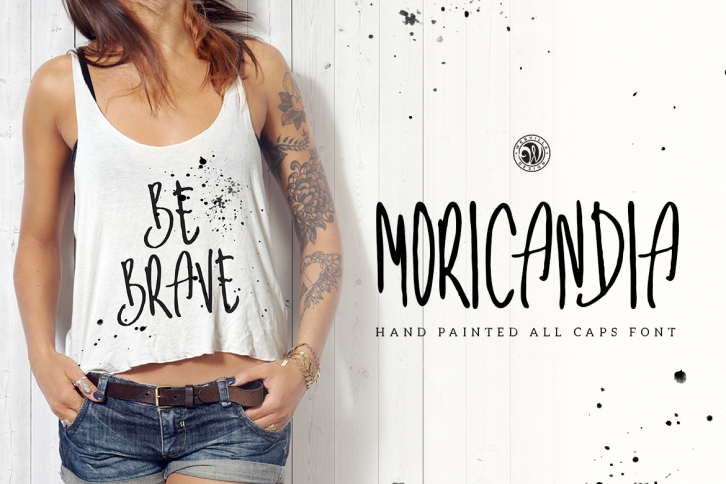
Moricandia is a gorgeous font that was realeased on May 12, 2017. The font can be used in many style contexts and design environments. Perfect for invitations, magazines, websites, logos, and more! It was designed by Webvilla and the file size is 5.25 MB. Thanks for checking out this font!